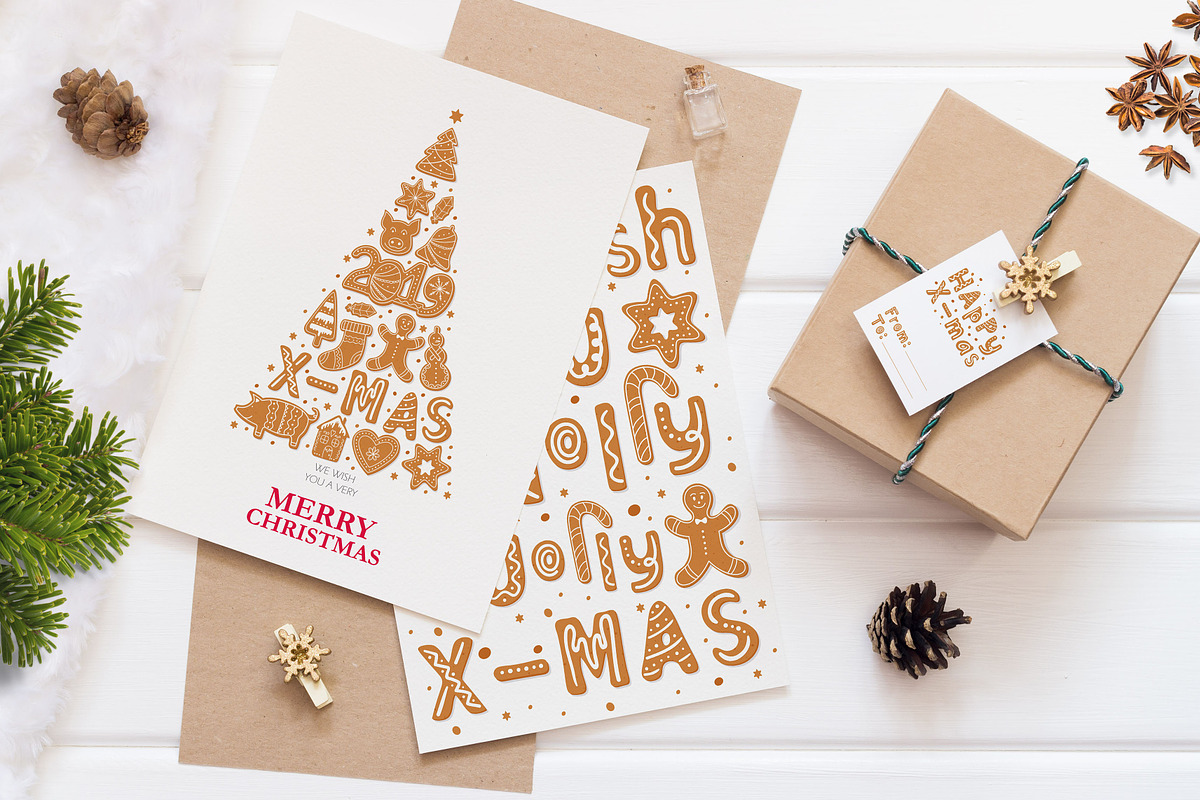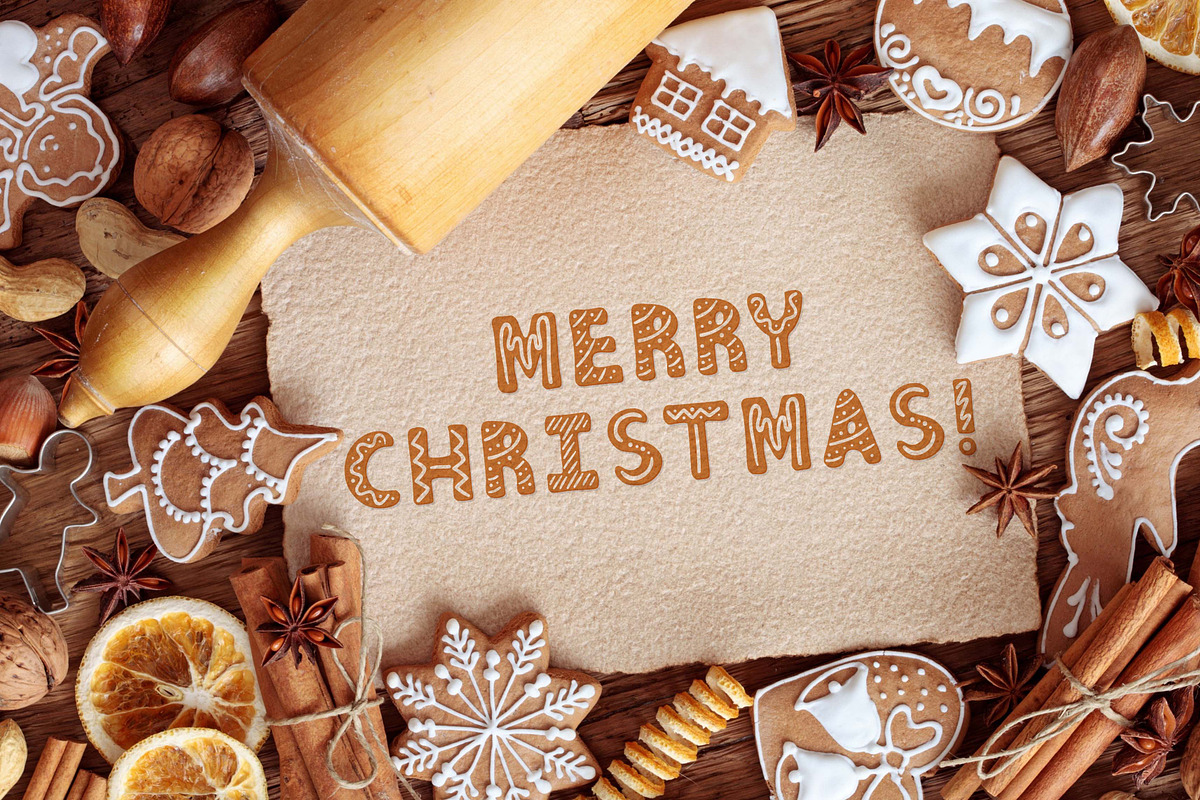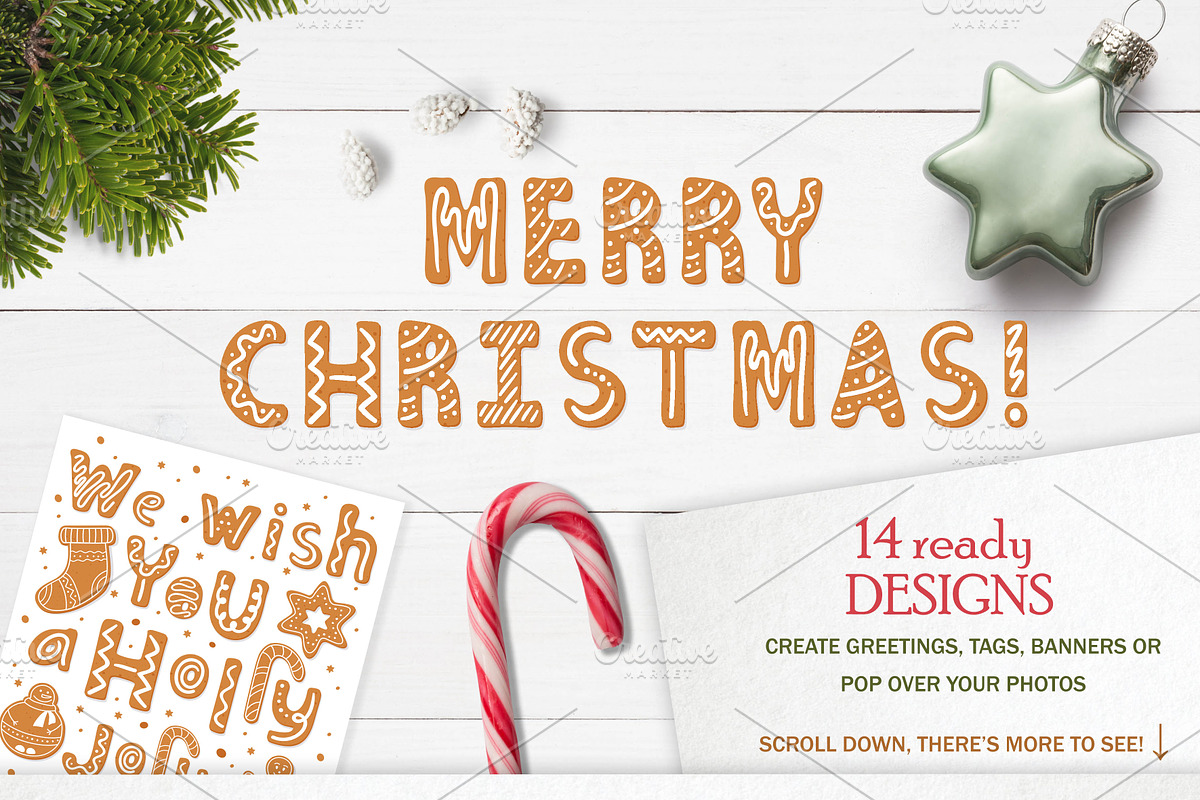
Gingerbread Christmas color SVG font
Gingerbread font is a color SVG font that was created as gingerbread cookies. Gingerbread font requires Photoshop CC 2017 or Illustrator CC 2018 (or newer) to use. Illustrator CC 2017, Photoshop CC 2015 and older versions DO NOT support color fonts. In these apps, you will see a non-colored fallback version of the font.